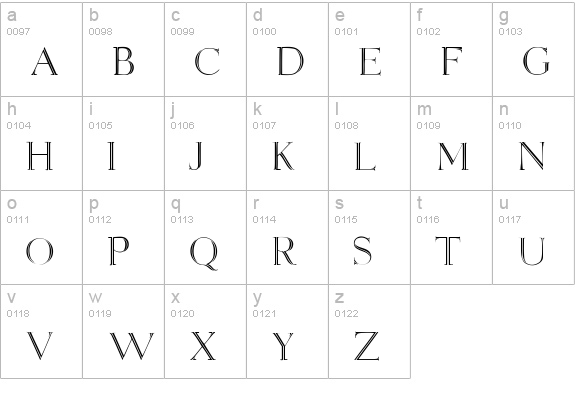
Elizabeth-ANN font is a stunning display typeface that exudes elegance and sophistication. With its delicate lines and graceful curves, this font is perfect for adding a touch of class to your designs. Whether you're creating wedding invitations, logos, or branding materials, Elizabeth-ANN font will elevate your projects to the next level. The best part about Elizabeth-ANN font is that it is completely free! You can download this beautiful font at FontsMarket.com and start using it in your designs right away. Don't miss out on the opportunity to add this gorgeous font to your collection without spending a dime. Download Elizabeth-ANN font now and let your creativity shine!